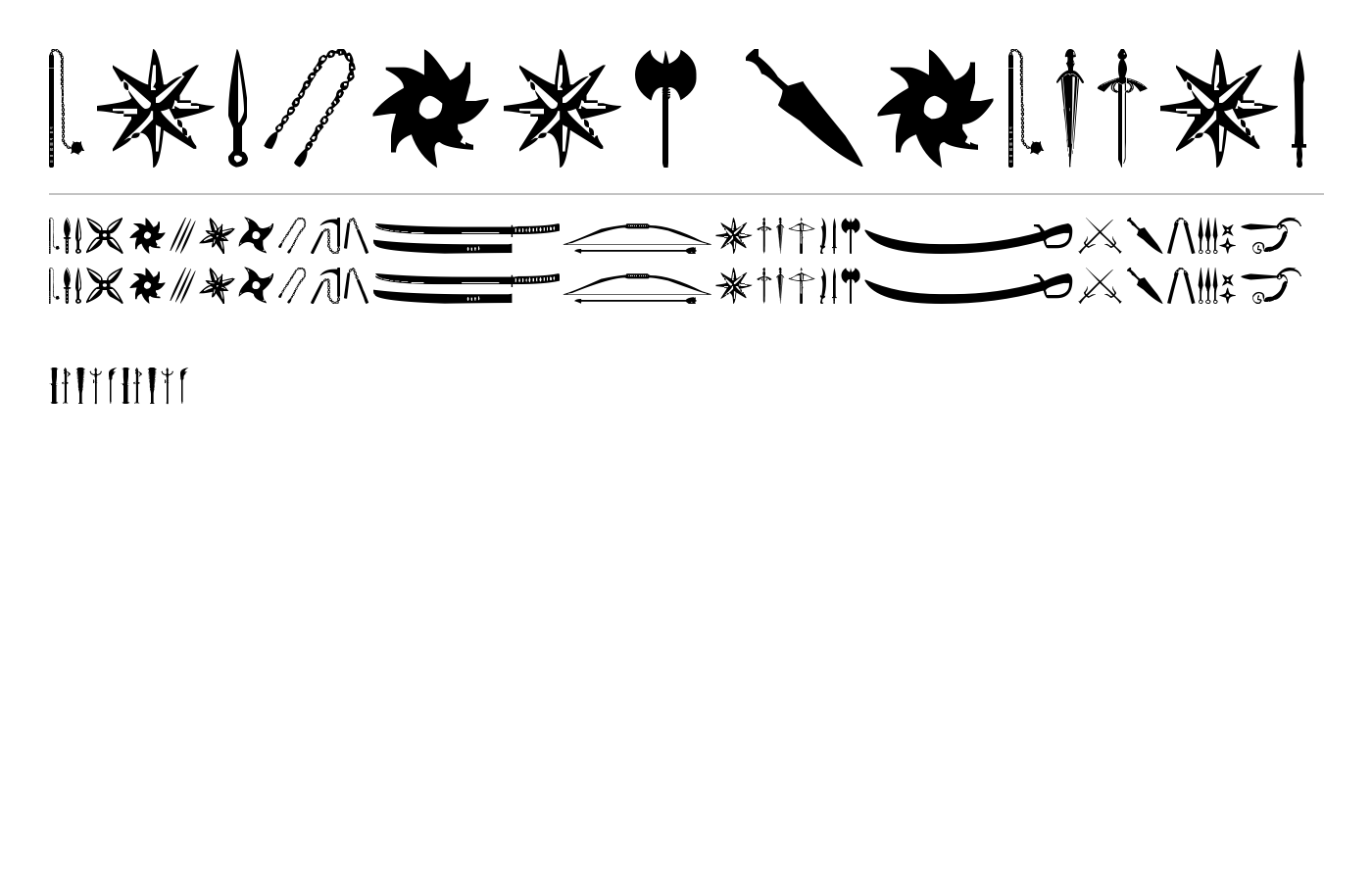
Ancient Weapons Font is a unique decorative dingbat-style set featuring detailed silhouettes of historic weapons and combat tools. This font is bold and visually striking, designed for specialized artistic use where a vintage, martial, or adventurous theme is desired. Ideal for fantasy game titles, movie posters, or themed event branding, it brings a strong, rugged, and historical character to any design.
Ancient Weapons Font
About Ancient Weapons Font